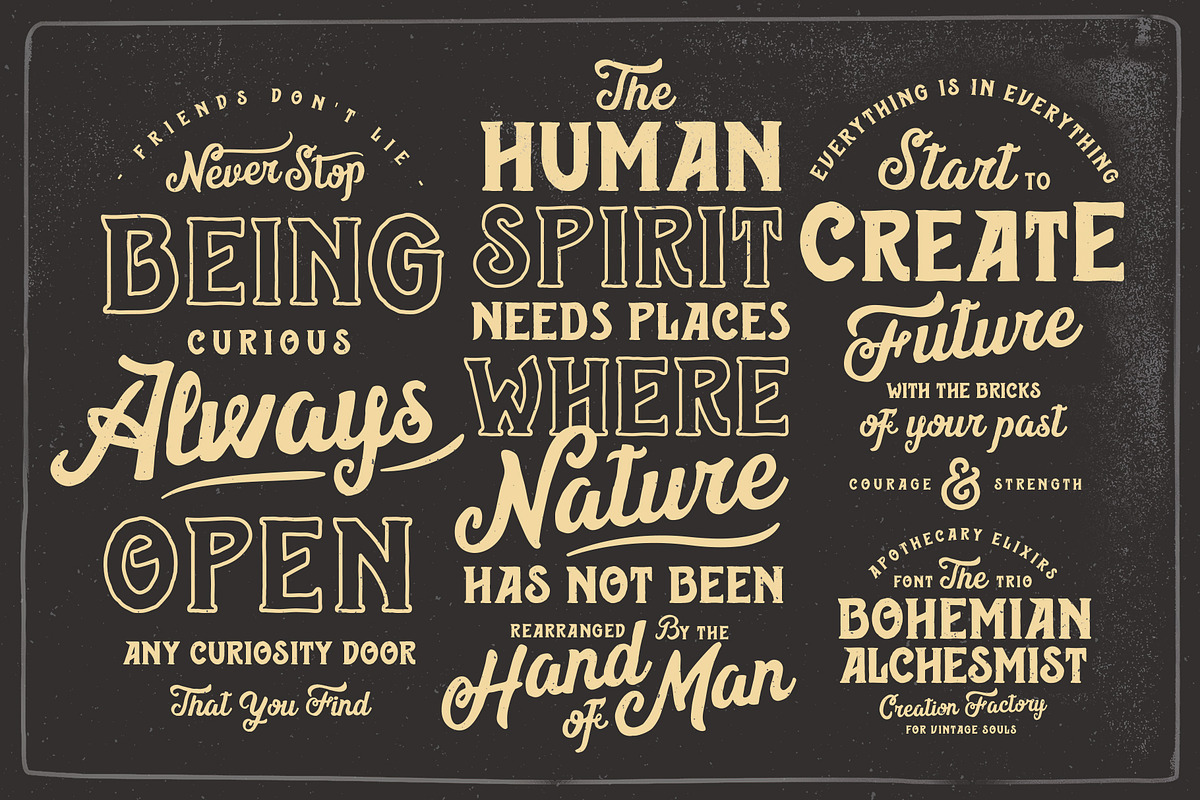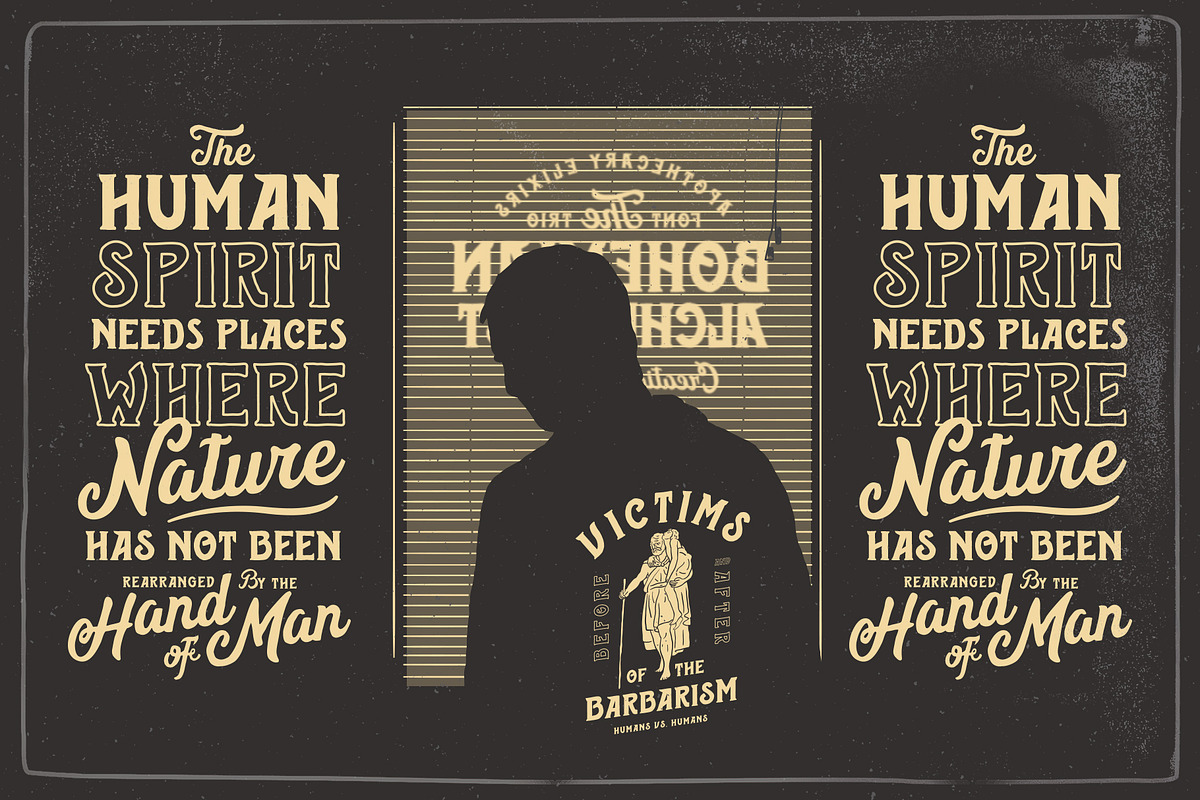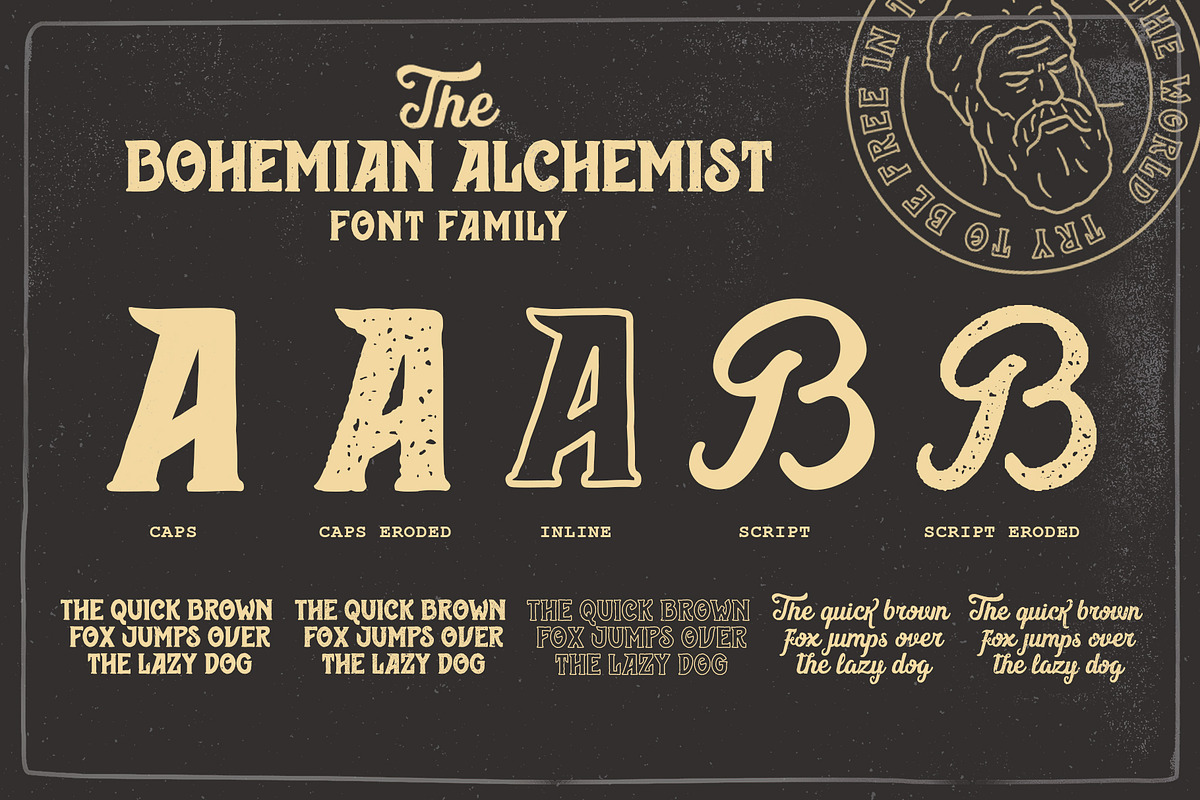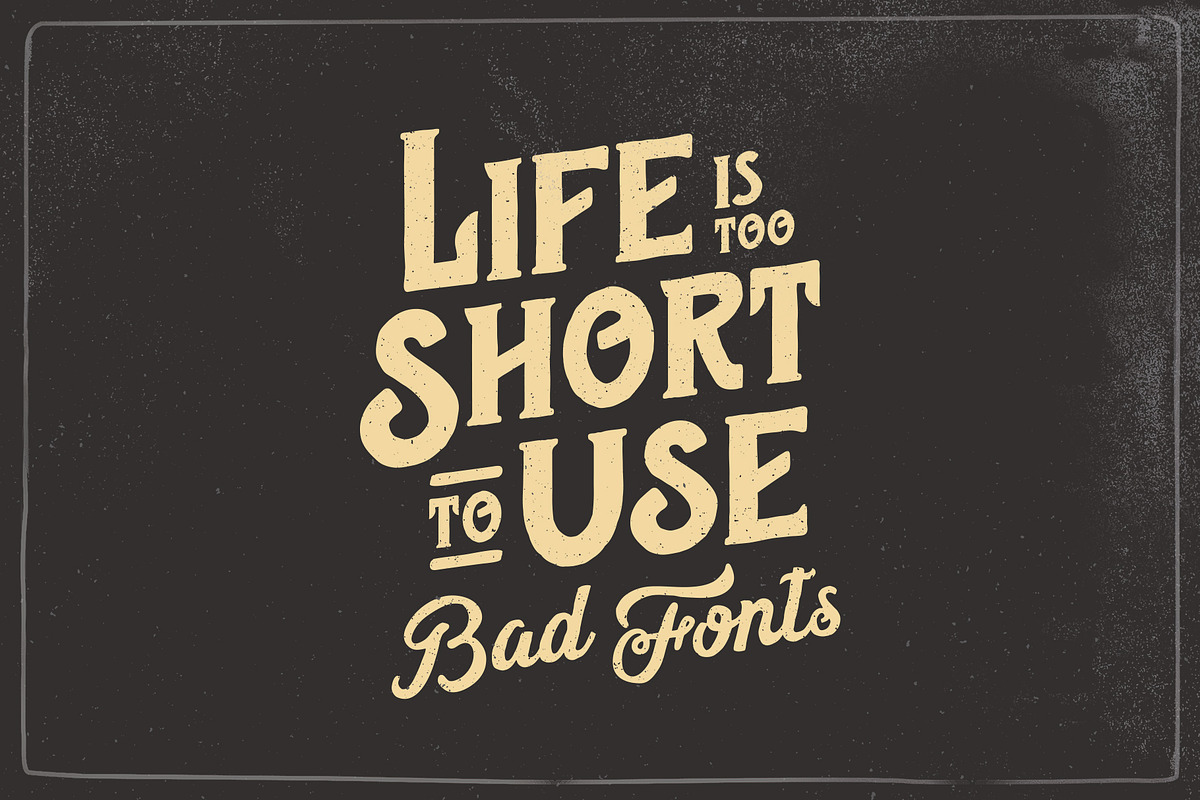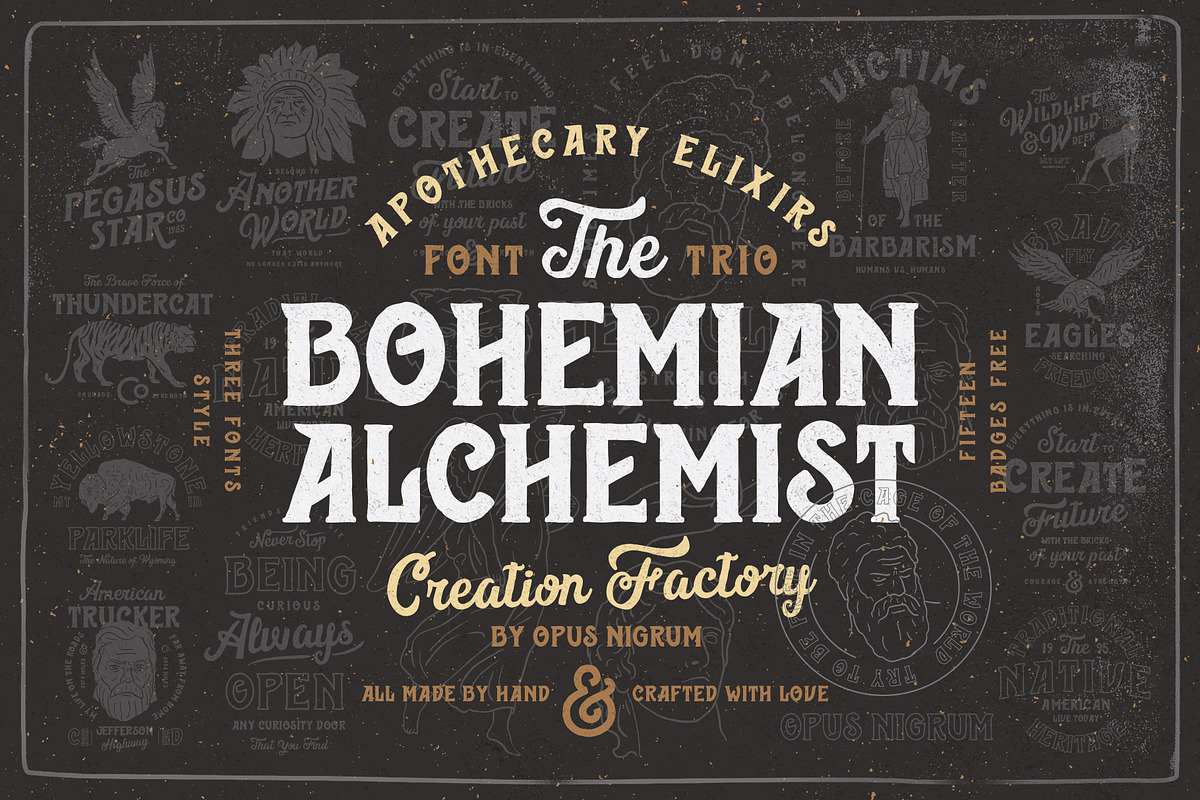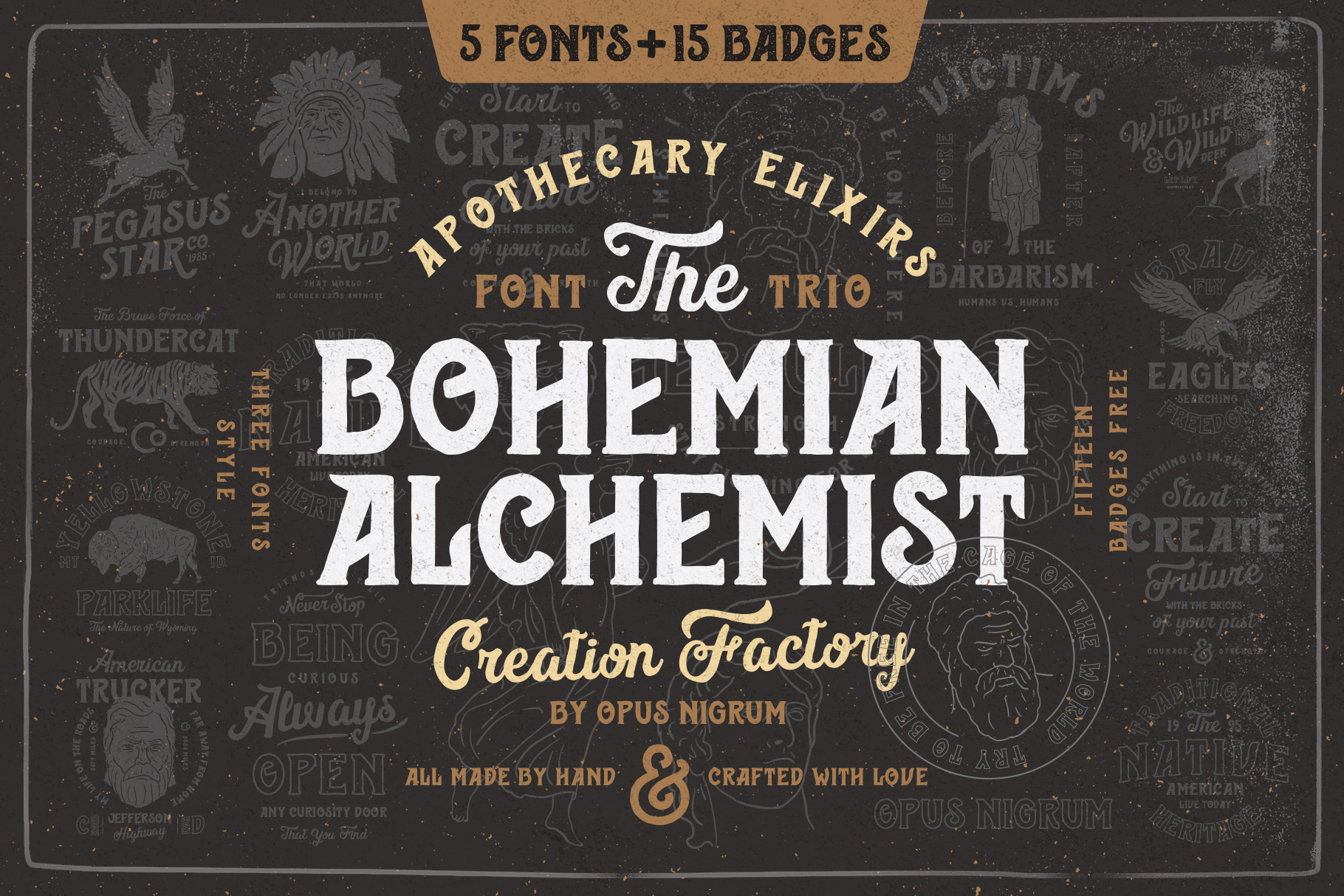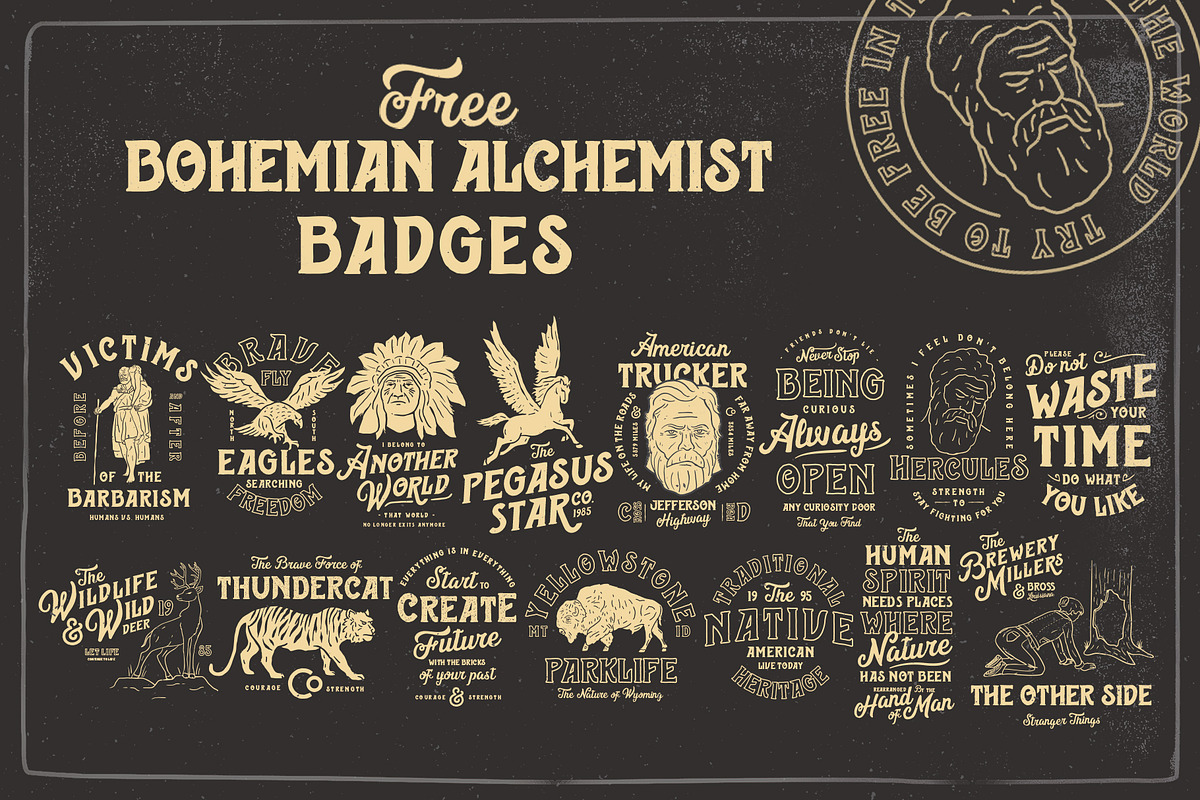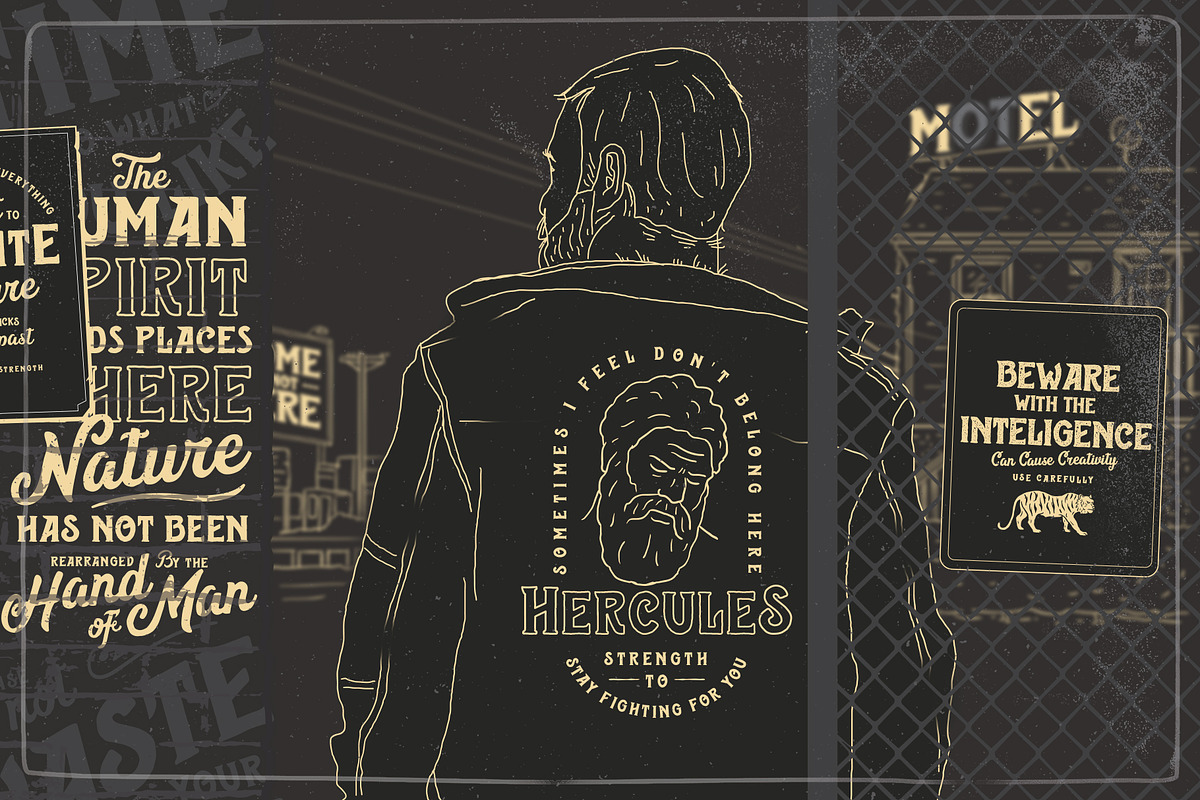
Bohemian Alchemist 5 Font + 15 Badge
BOHEMIAN ALCHEMIST Font + Badges This font was inspired by the old pharmacy bottle labels. With some retro and dirty art deco, handmade. The alchemy of design, everything is in everything and "Bohemian Alchemist" is not the exception, it is the mixture of styles and times to create something unique. This font was made entirely by hand. I hope you like it!
Beautiful typeface and badges! Love the varying yet coordinated font options.